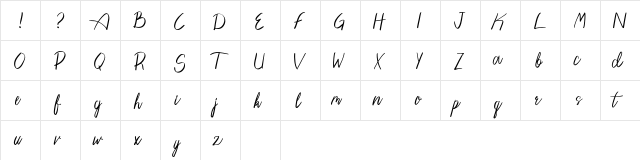
Pengiloon Script (DEMO VERSION) Regular
Design Context for Pengiloon Script (DEMO VERSION) Typeface
Pengiloon Script (DEMO VERSION) brings a calligraphic fluidity to the page — its connecting strokes and expressive curves give it an unmistakably human quality.
Font Pairing: Combine Pengiloon Script (DEMO VERSION) with a simple geometric sans for maximum contrast — the tension between flowing curves and clean structure is a classic typographic pairing.
Pro Tip: Pair Pengiloon Script (DEMO VERSION) with a clean sans-serif for supporting text. The contrast between fluid script and geometric structure creates an elegant typographic hierarchy.